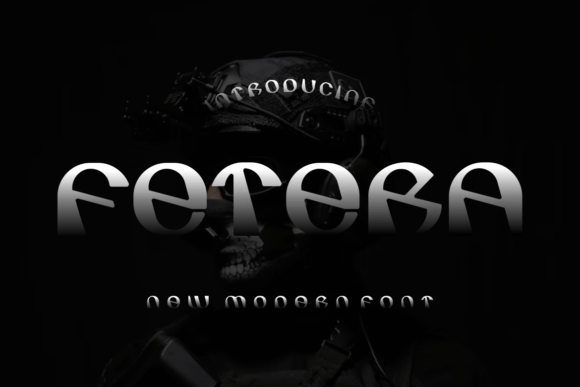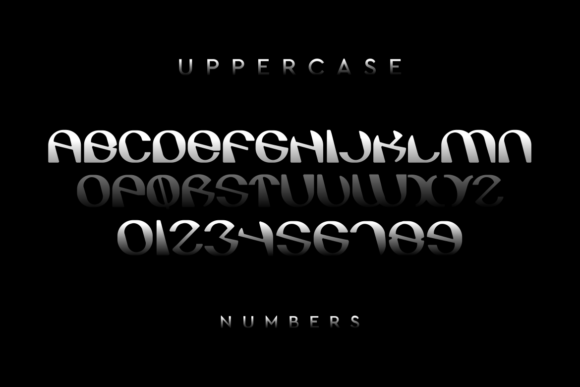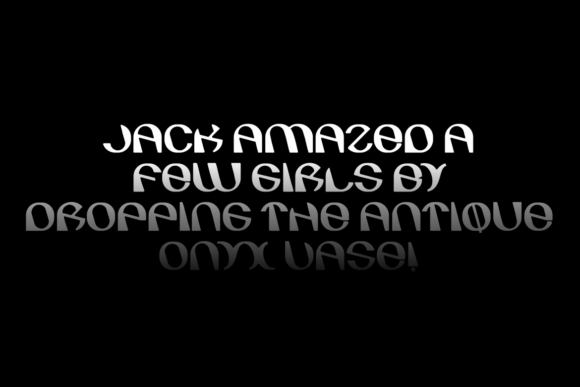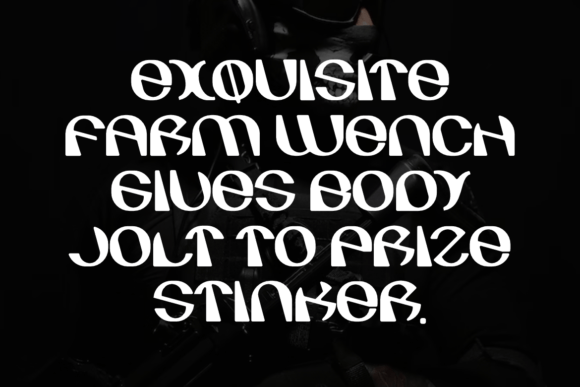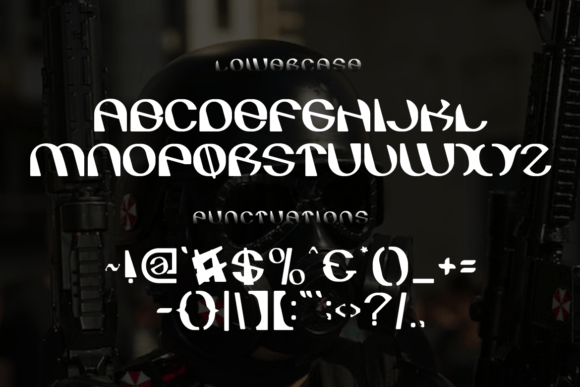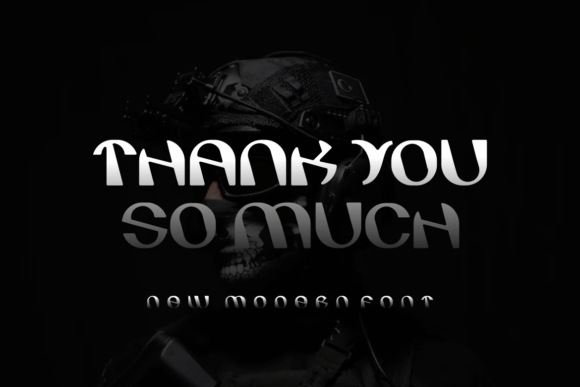
Introduction to Fetera Font
Fetera is a unique display font that feels beautiful, classy, elegant, and modern.
This font is perfectly suited for a wide variety of projects, such as signature, stationery, logo, wedding, typography quotes, magazine or book covers, website headers, clothing, branding, packaging design, and more .
Key Features of Fetera Font